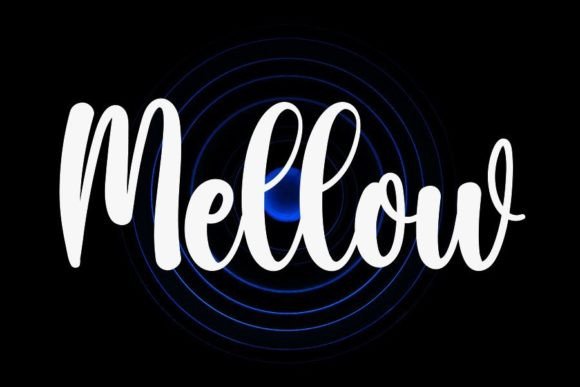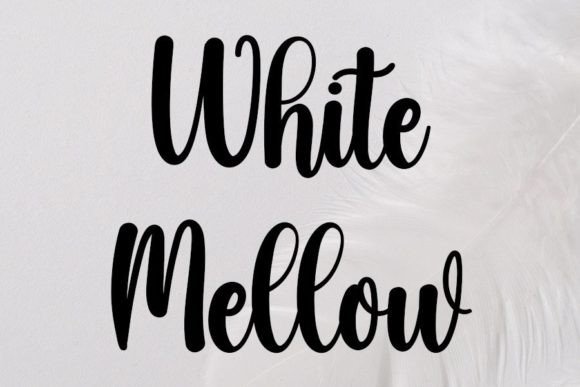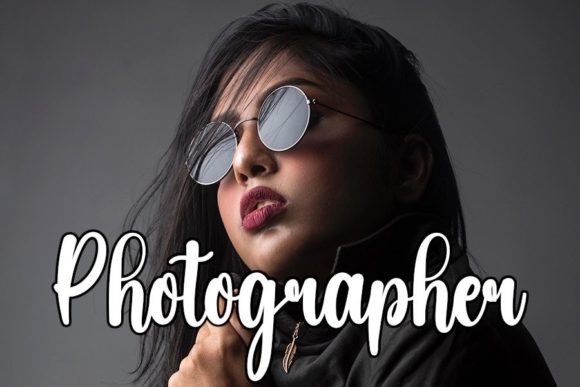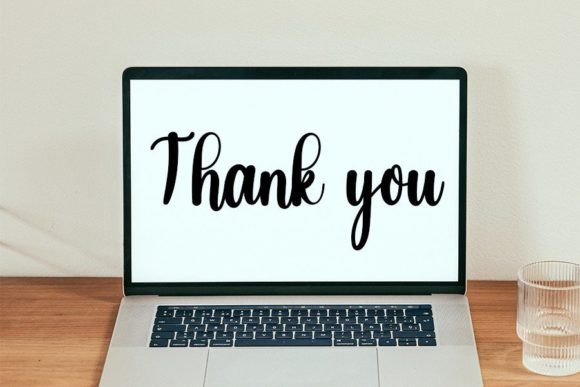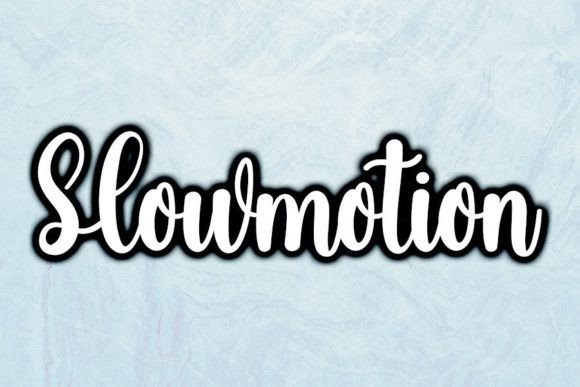
Mellow Font
About Mellow Font
“Mellow” is a font that exudes elegance and beauty with its neat and handwritten style. It is characterized by an elegant touch that adds sophistication to any design project, making it perfect for a wide range of creative endeavors. “Mellow” stands out with its distinct and timeless style, making it an ideal choice for those seeking a font that combines elegance and individuality.
The font’s neat and beautiful characters are meticulously crafted, creating a sense of refinement and grace. Its elegant touch adds a touch of sophistication, making it suitable for projects that require a sense of class and style. Whether you’re designing wedding invitations, branding materials, social media graphics, or any other project, “Mellow” enhances the visual appeal, making your designs truly spectacular.
The distinct and timeless nature of “Mellow” sets it apart, giving your designs a sense of uniqueness and charm. Its handwritten elegance adds a personal touch, making your creations feel warm and inviting. The font’s versatility allows it to adapt to various design styles, ensuring it complements different themes and aesthetics effortlessly.
Incorporating “Mellow” into your projects allows you to create designs that stand the test of time. Its elegant and beautiful handwritten style adds sophistication, making your creations visually stunning. Whether you’re working on elegant invitations, luxurious branding, or refined promotional materials, “Mellow” elevates the overall aesthetic, making your designs truly exceptional.
Fall in love with the distinct and timeless style of “Mellow” and use it to create spectacular designs that captivate your audience. Its elegant touch and beautiful characters will add sophistication to your favorite projects, making them truly remarkable and unforgettable. Embrace the font’s elegance and let it transform your designs into works of art that leave a lasting impression.